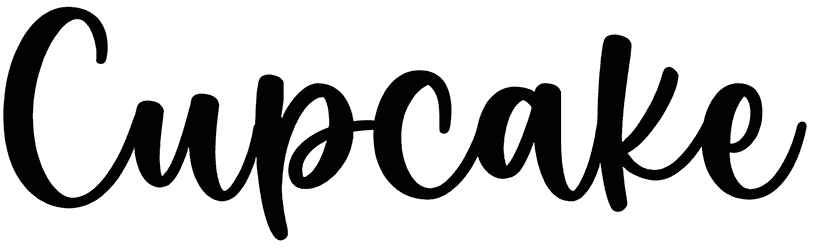
Cupcake Font
There’s no font better fit than Cupcake for promoting your bakeries and packaging your pastries. However, you probably don’t want to leave it at that. You can do so much more with an adorable cursive font like Cupcake in your projects. Is it a cooking class logo that you want, a birthday card, or a summer party poster? This handwritten font is going to hit the spot anyway. After all, its sweet touch is not something to get enough of.